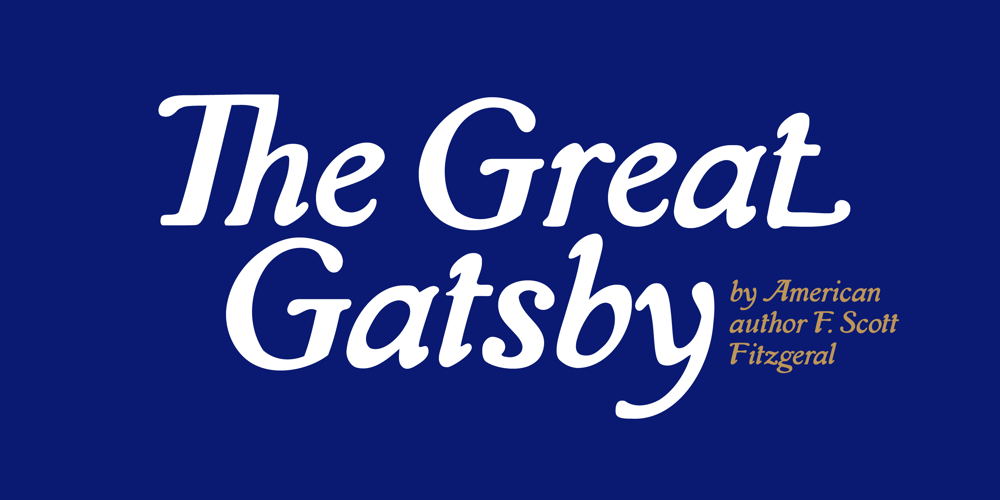
Isla Font Family was designed by Alejandro Paul, Alfredo Graziani and published by Sudtipos. Isla contains 2 styles and family package options. Eugene Grasset, the popular 19th-century Swiss graphic designer, dabbled in a multitude of disciplines such as ceramics, furniture, tapestry, jewelry and stamp design. Known mostly for his commercial posters and illustrations, he left a legacy of design that still fascinates scholars and professionals alike. One of the rarely mentioned Grasset treasures is the italic he designed in 1898 for use in two of his posters. Grasset’s italic has an irregular quality that makes it seem much older than it is. It can be a very meaningful face in many contexts, such as map-related design or historical publications. Isla was digitized by Alfredo Graziani and completed by Alejandro Paul, maintaining the utmost respect for its historical flavor. The typeface includes a wealth of ligatures and alternates.